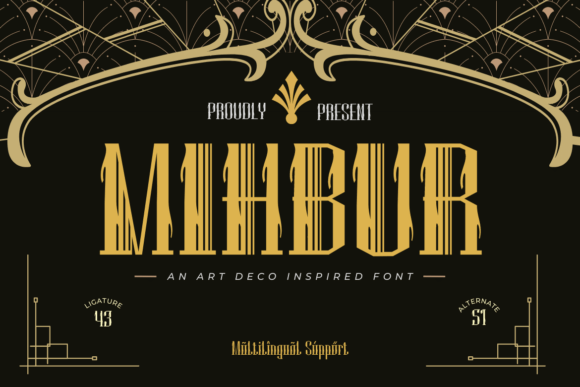
Are you searching for the perfect font to elevate your designs and captivate your audience? Look no further than Mihbur Font, the ultimate choice for display ads. Created by twinletter, this font is a true masterpiece that combines elegance, sophistication, and a touch of vintage glamour.
Mihbur Font stands out from the crowd with its sleek lines and mesmerizing geometric shapes. Inspired by the iconic Art Deco movement, this font brings a sense of timeless beauty to any project. With its modern twist, Mihbur Font seamlessly blends the past and the present, making it a must-have for designers seeking a unique and captivating aesthetic.
Imagine your invitations, posters, or branding materials adorned with the exquisite beauty of Mihbur Font. Each character is carefully crafted to exude elegance and grace, leaving a lasting impression on anyone who lays eyes on your work. The attention to detail is unparalleled, ensuring that every letter and symbol complements your design with perfection.
But Mihbur Font offers more than just visual appeal. It is PUA encoded, which means accessing all glyphs and swashes is effortless. Unlock a world of creativity with endless possibilities, allowing you to customize and personalize your designs to reflect your unique style and brand identity. Let your imagination run wild as you explore the versatility of this font.
When it comes to marketing, Mihbur Font is a game-changer. Its keyword-rich composition ensures that your display ads will reach and engage your target audience effectively. Craft compelling headlines and taglines that resonate with emotion and creativity. Stand out from the competition and leave a lasting impression on potential customers.
In a world where first impressions matter, Mihbur Font is your secret weapon. It captivates, inspires, and evokes a sense of awe. Whether you're a seasoned designer or just starting your creative journey, this font will take your work to new heights. Don't settle for ordinary when you can have extraordinary.